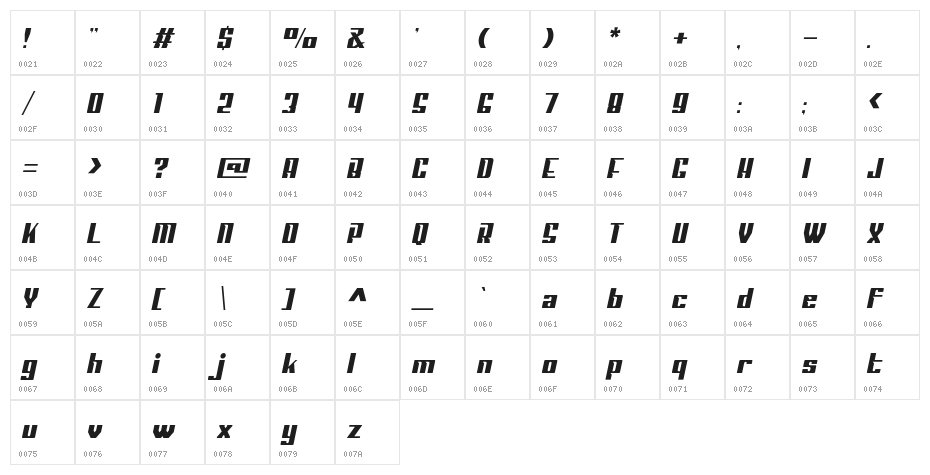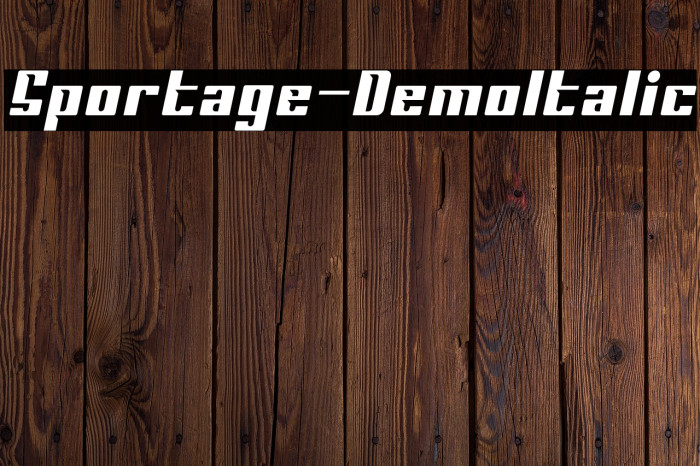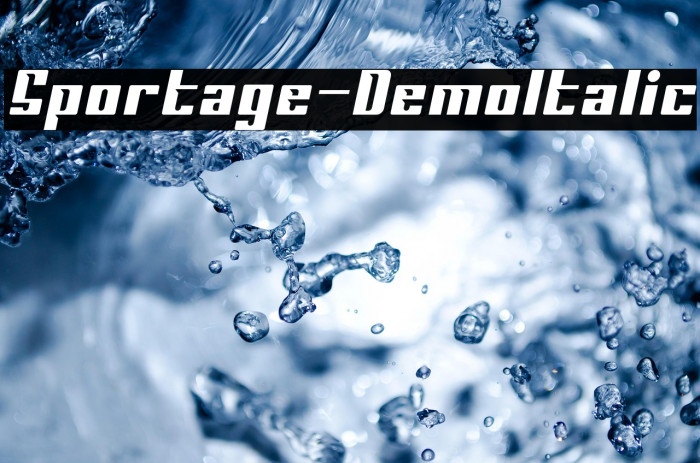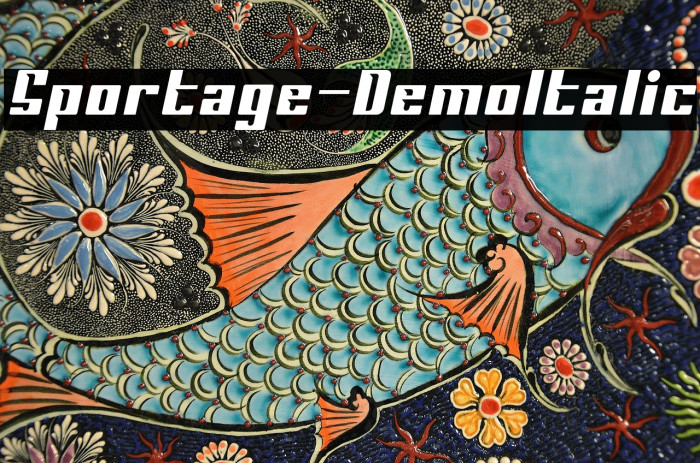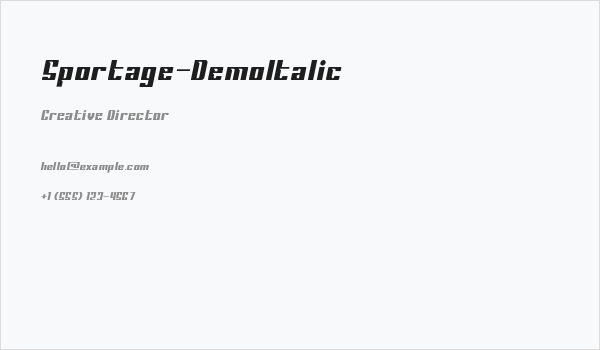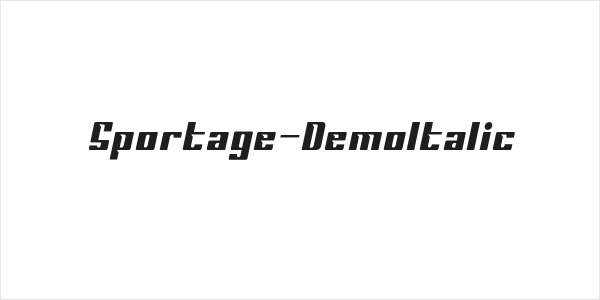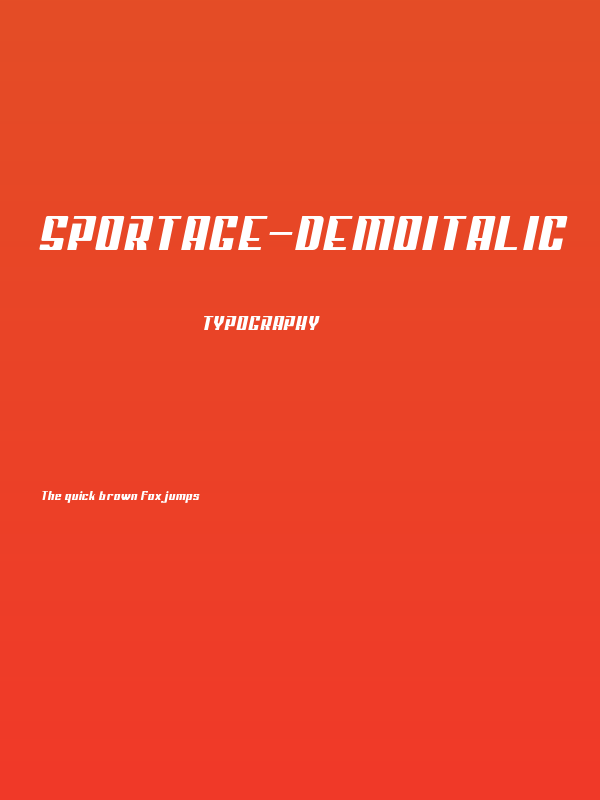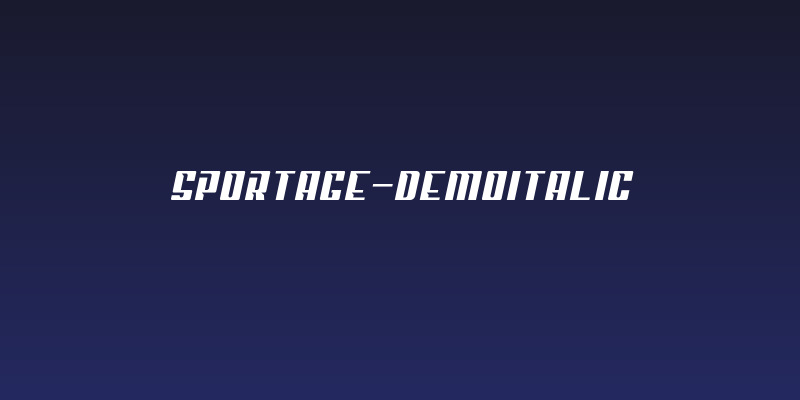
Sportage-DemoItalic Font
Sportage-DemoItalic Description
This font features a bold and dynamic style with a distinct italic slant, giving it a sense of motion and energy. The characters are blocky and angular, with sharp edges and a strong presence. The uppercase letters are particularly striking, with a consistent height and width that create a uniform appearance. The lowercase letters maintain the same boldness, with some variations in width that add interest and variety. The numerals are equally bold, ensuring readability and impact. Special characters are included, maintaining the same angular and bold characteristics. This font is ideal for projects that require a strong, impactful visual presence.
| Proposed Projects | Ideal for sports branding, action movie posters, video game titles, and dynamic advertising campaigns. |